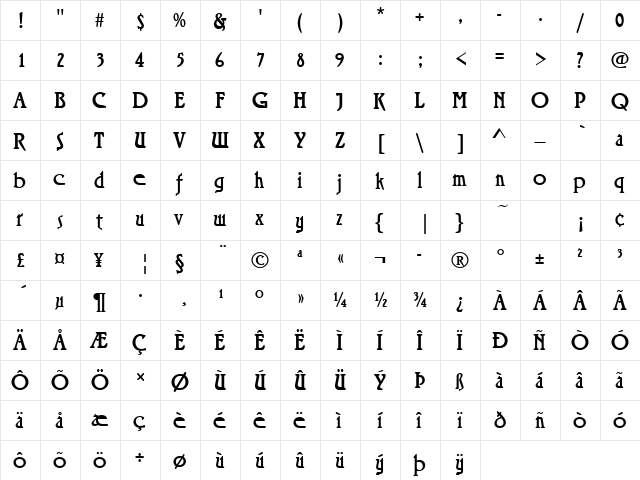
URWRheaD Regular
Design Context for URWRheaD Typeface
URWRheaD is a composed and adaptable typeface that performs quietly and consistently across a wide range of design contexts.